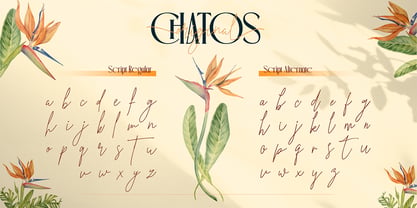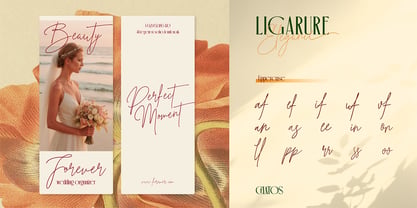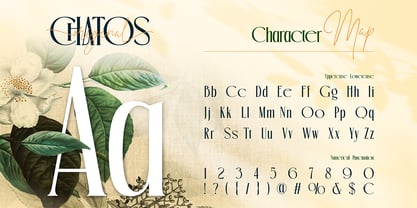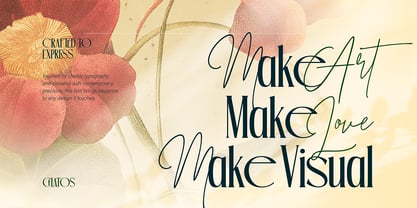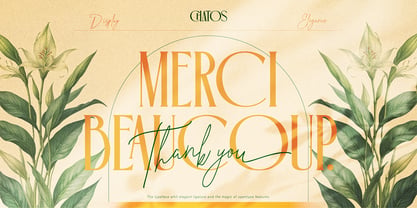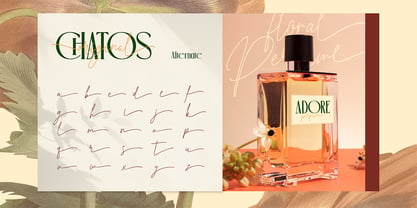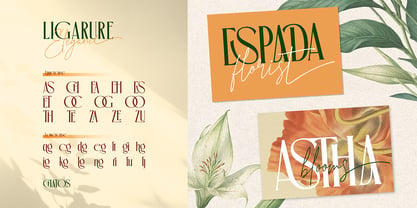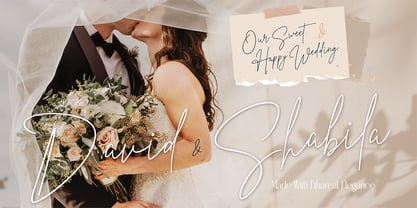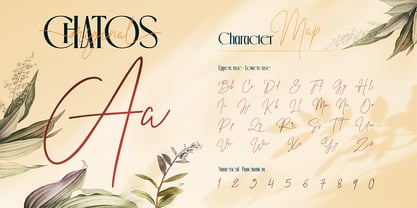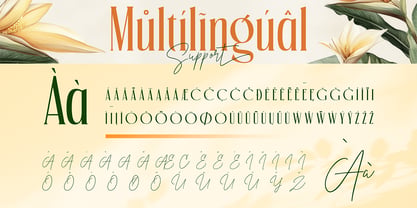
Chatos Original
by Burntilldead
The Chatos Original Font Family was designed by Eric Kurniawan and published by Burntilldead. Chatos Original contains 2 styles and family package options. More about this family
Chatos Original is a refined duo font that combines an elegant serif with a flowing handwritten script. Designed to work beautifully together, this font brings a timeless, romantic, and artistic feel to any design. The serif style features graceful curves and stylish alternates, perfect for headlines, logos, and editorial layouts. Meanwhile, the script font adds a natural handwritten touch that feels personal and expressive, ideal for signatures, branding accents, and decorative text. Perfect for: Branding & logo design, Wedding invitations & stationery, Beauty, fashion, and floral designs, Editorial layouts & social media graphics, Product packaging and quotes
Designers: Eric Kurniawan
Foundry: Burntilldead